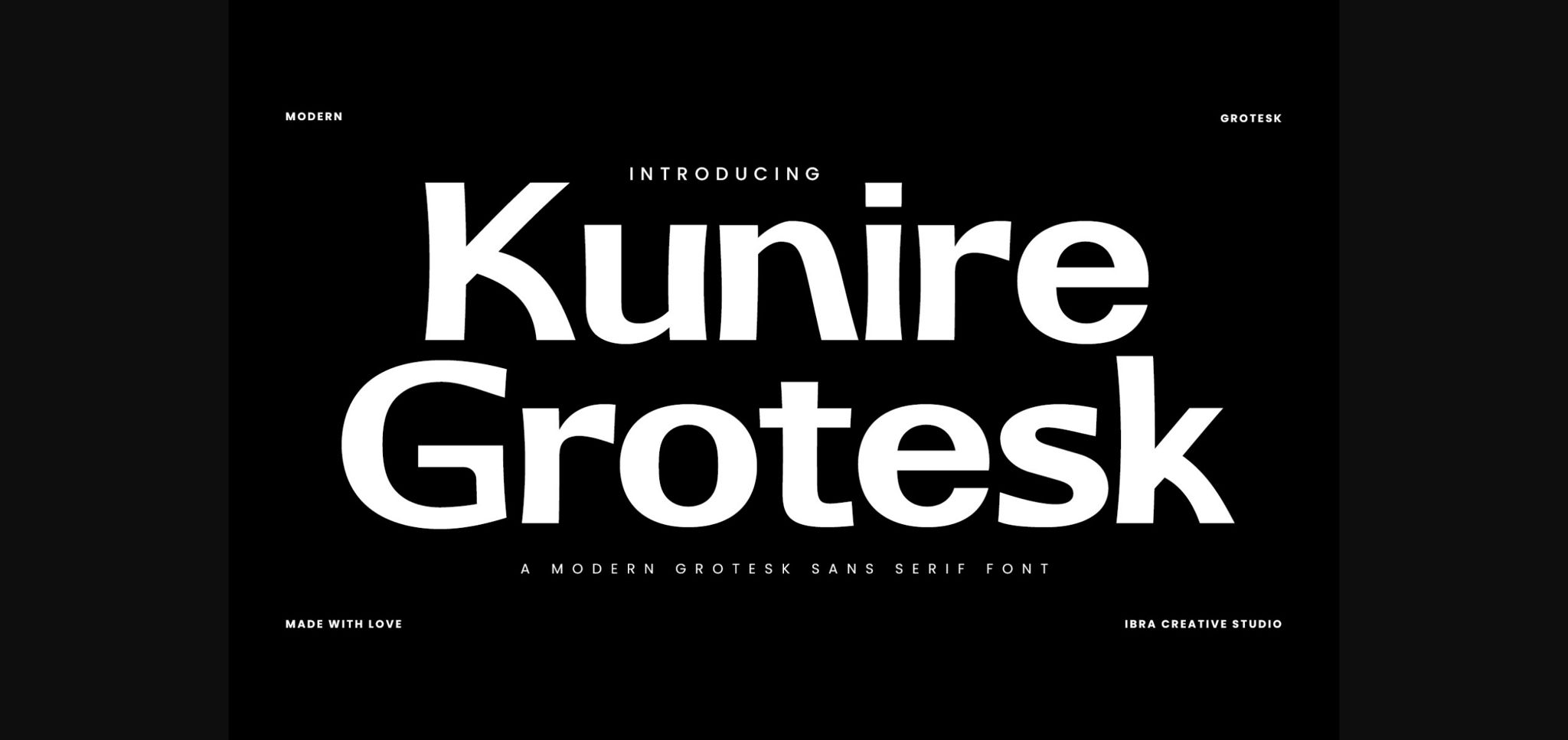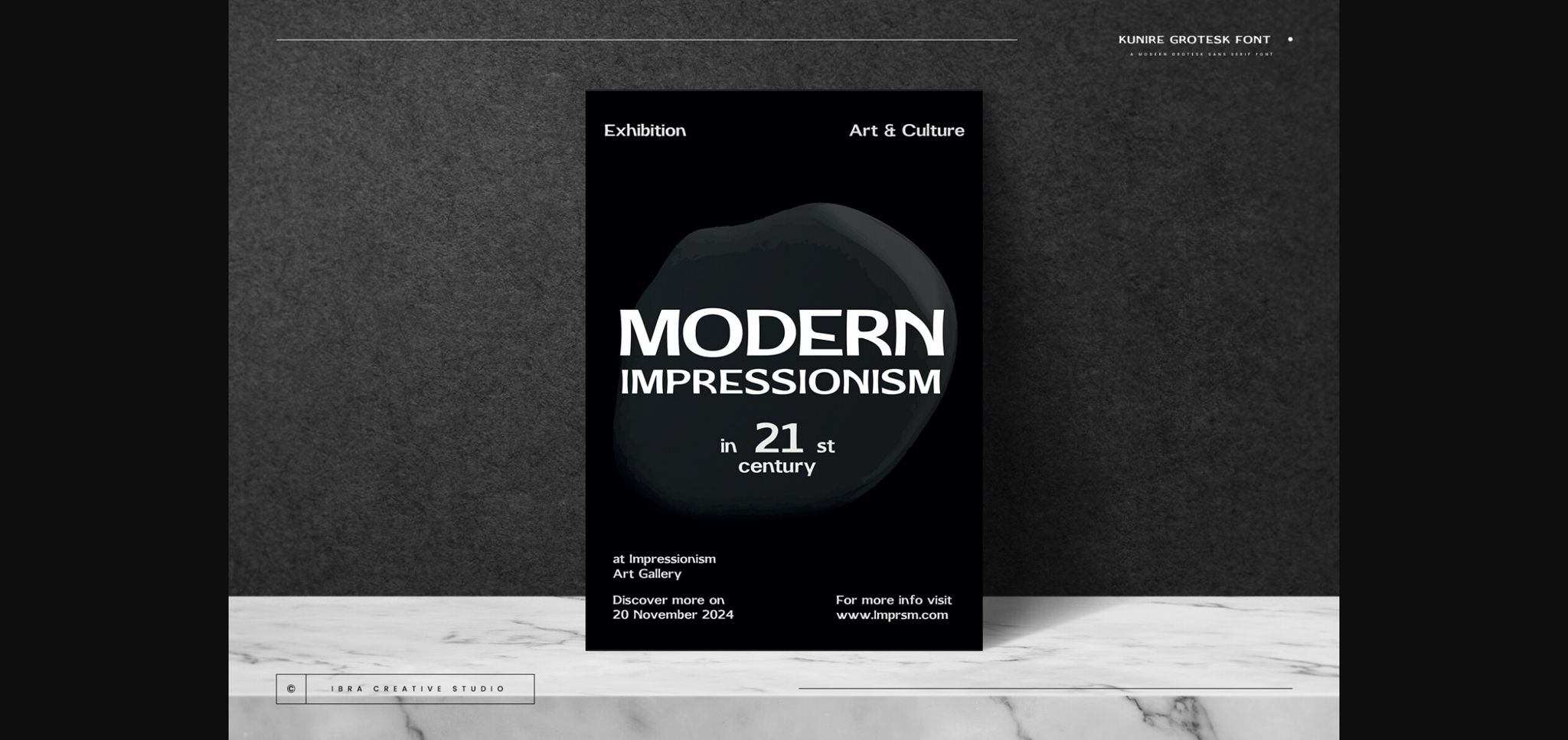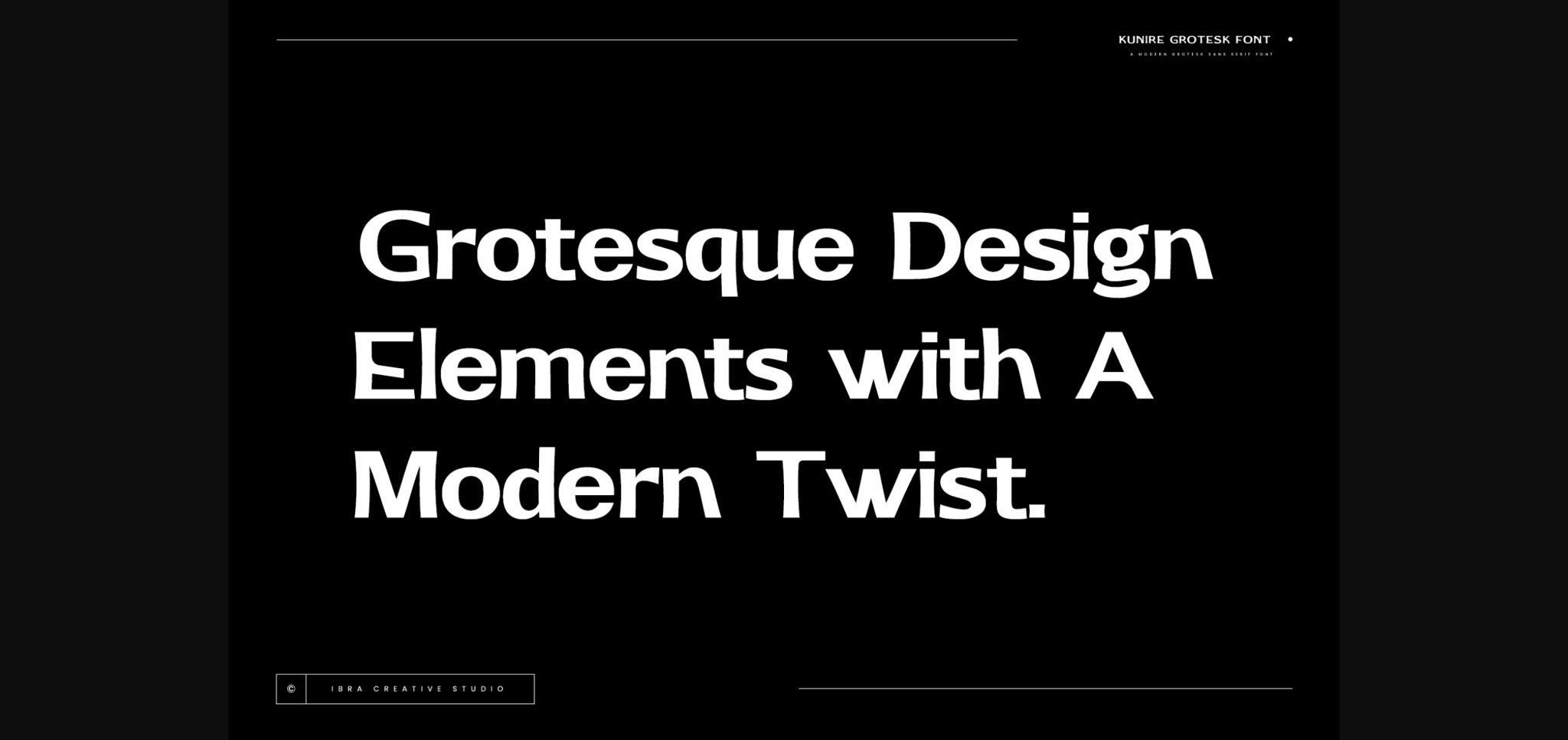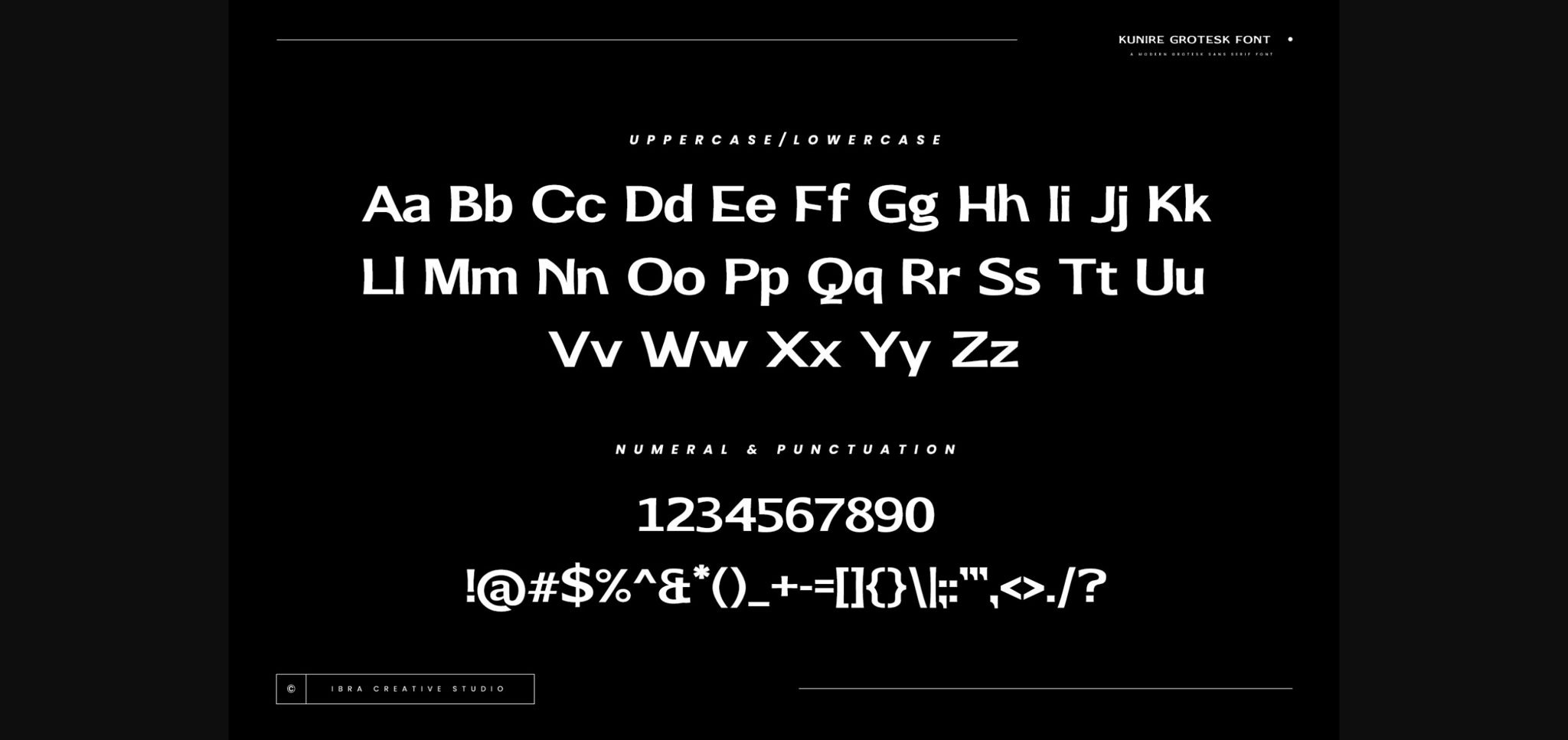
About Kunire Grotesk Font
Kunire Grotesk is a contemporary sans-serif font that seamlessly blends classic grotesque design elements with a modern twist. Exhibiting a refined balance between simplicity and intricacy, Kunire Grotesk features clean lines, geometric shapes, and a distinctive grotesque aesthetic that exudes a sense of sophistication. The font’s letterforms are characterized by their sharp, angular terminals and well-defined strokes, lending a crisp and professional appearance to any text.